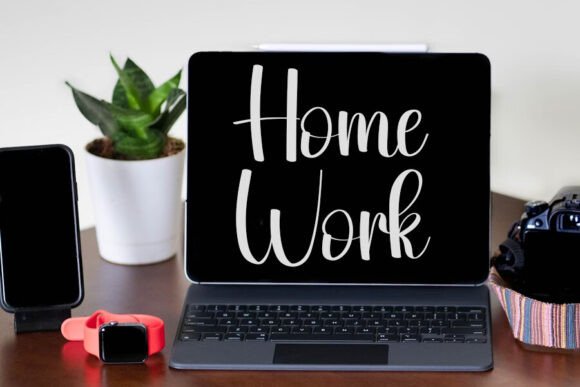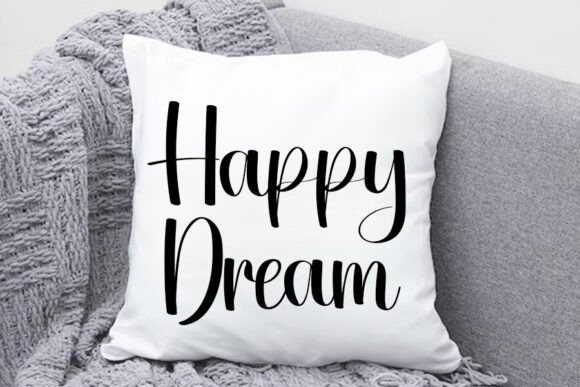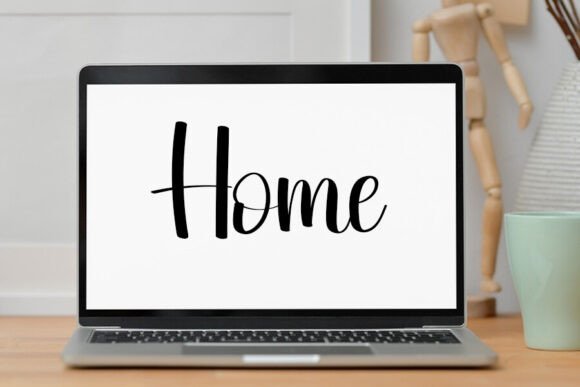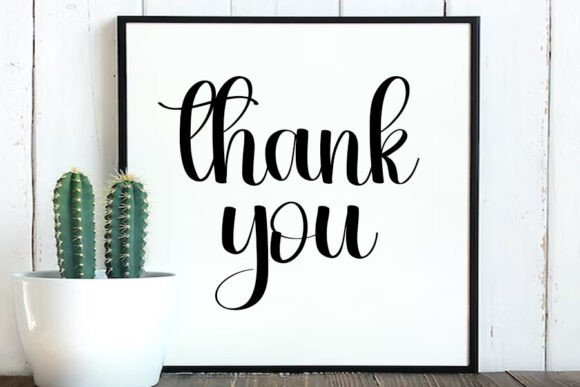
Unleash Your Creative Potential with Babysh Font
Have you ever stared at a blank page, waiting for the perfect idea to strike? The moment of creative clarity is a magical one – the rush of excitement, the spark of inspiration, and the promise of something new and innovative. For designers, this moment is a daily occurrence, and it’s exactly what makes our craft so thrilling. But what happens when you need to bring that idea to life, and you’re stuck on the perfect font to match your vision?
Enter Babysh Font, a game-changing addition to your design toolkit. This stunning font is designed to elevate your projects, from the most mundane to the most extraordinary. With its simple yet dynamic character, Babysh effortlessly elevates your work, making it stand out from the crowd.
Whether you’re working on a YouTube banner, a logo mock-up, or a wedding invitation, Babysh Font is the perfect partner in crime. Its unique charm and versatility make it a valuable asset for any designer, and we can’t wait to see what you create with it!
Babysh Font Key Features
• Font Style: Babysh Font is a cursive, handwritten font with a unique and playful feel.
• Character Set: Includes a wide range of characters, including uppercase and lowercase letters, numbers, and punctuation marks.
• Unique Characteristics: Features distinctive swashes and flourishes that add a touch of whimsy and personality to text.
Babysh Font Review
I recently had the chance to work with the Babysh Font, and I must say it’s a mixed bag. Here are my thoughts.
• Playful and whimsical feel: The Babysh Font is perfect for projects that need a touch of innocence and charm.
• High-quality glyphs: The font’s characters are well-crafted and detailed, making it a joy to use.
• Good legibility: Even at smaller sizes, the font remains readable, which is essential for any typeface.
• Limited versatility: The Babysh Font is best suited for projects with a young or playful theme, which might limit its use in other contexts.
• Some characters may be too ornate: While the font’s details are lovely, they can sometimes make certain characters difficult to read or use.
The Babysh Font is a delightful, if not somewhat niche, typeface. It excels in projects that require a touch of whimsy and innocence, but may not be the best choice for more serious or complex designs.